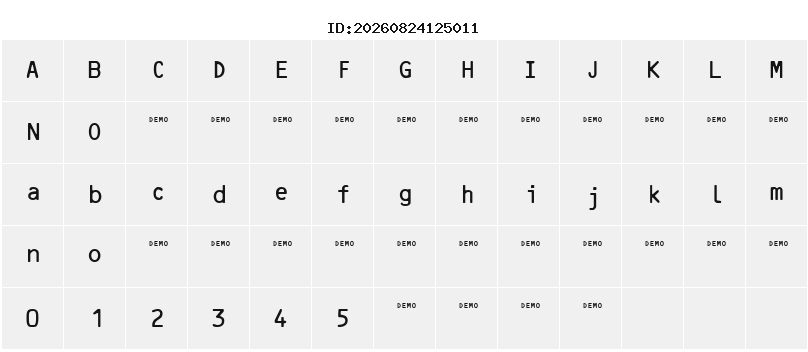
About Sadocrbn.ttf
Sadocrbn.ttf is a modern, elegant sans-serif font designed for ultimate readability and visual harmony. Perfect for branding, headlines, web design, and print materials.